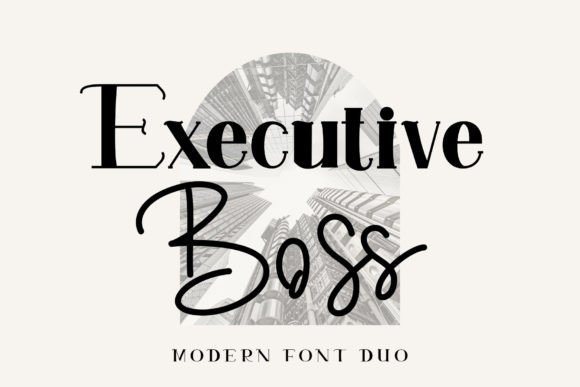
Dive into the realm of typographic elegance with Executive Boss Font, a captivating serif font duo that exudes sophistication and modern charm. This remarkable creation by thomasaradea presents a harmonious blend of a graceful serif font and a mesmerizing signature monoline-style script font, inviting you to unleash your creative flair.
With Executive Boss Font gracing your designs, prepare to captivate beholders and leave a lasting impression. Its refined strokes and elegant curves evoke a sense of luxury and class, while its contemporary appeal ensures it stays relevant in the ever-evolving digital landscape. Experience the joy of crafting stunning wedding invitations that radiate romance and timeless beauty, or elevate your stationary art with a touch of sophistication.
Unleash your creativity on social media, crafting eye-catching posts that demand attention and spark engagement. Let your brand's logo radiate confidence and distinction, or design packaging that exudes exclusivity and quality. From advertising campaigns that resonate with your audience to products that command attention on shelves, Executive Boss Font is your trusted companion, transforming your designs into masterpieces.
Beyond its aesthetic allure, Executive Boss Font boasts practical versatility, supporting a wide range of languages and offering PUA encoding for effortless access to glyphs and swashes. This user-friendly feature opens up a world of creative possibilities, empowering you to craft multilingual designs with ease and add intricate details that elevate your work.
Elevate your design arsenal with Executive Boss Font, a font duo that embodies sophistication, versatility, and timeless appeal. Experience the joy of creating designs that radiate elegance and make a bold statement. Embrace the limitless possibilities and let your creativity soar as you transform your projects into works of art.